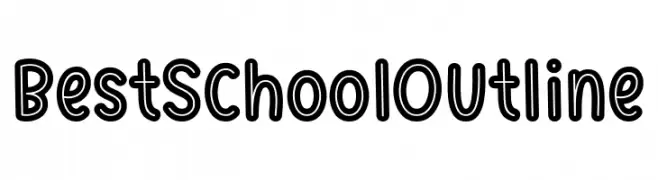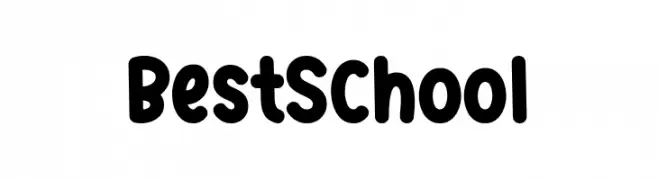
A playful, outlined font with rounded characters and a bold, friendly style.
A playful, bold font with rounded, thick strokes and a friendly appearance.